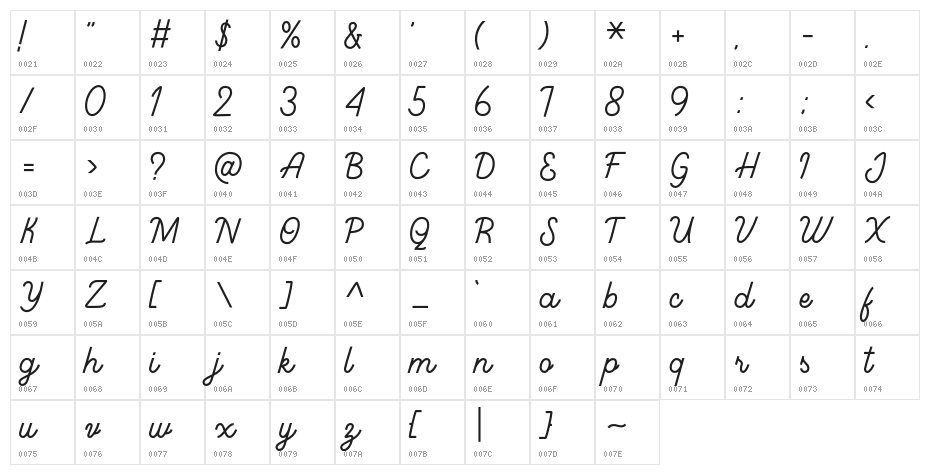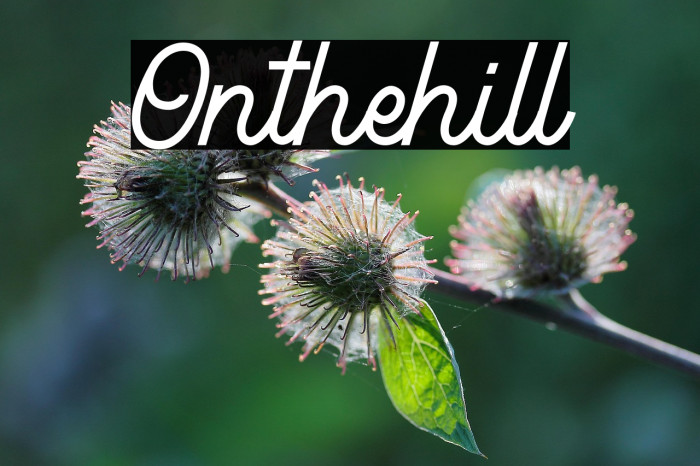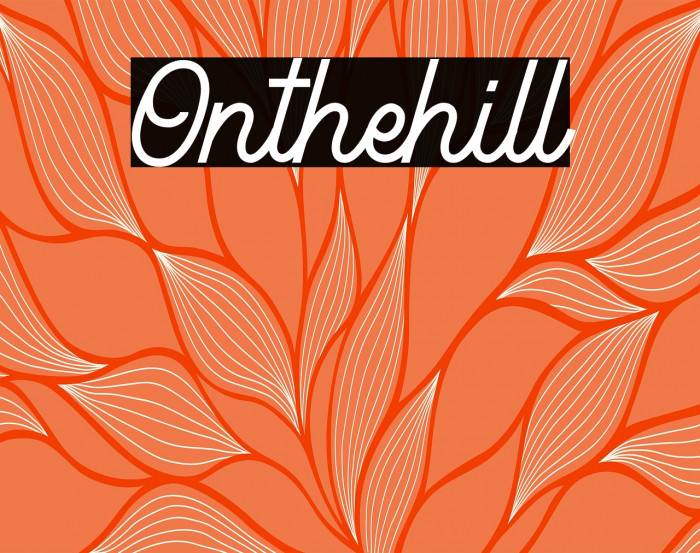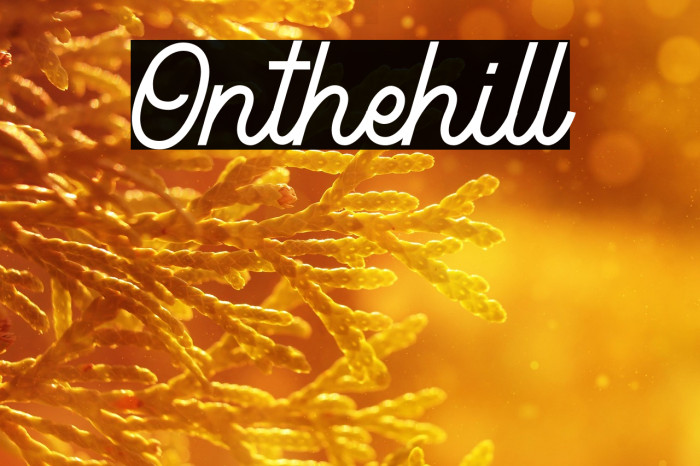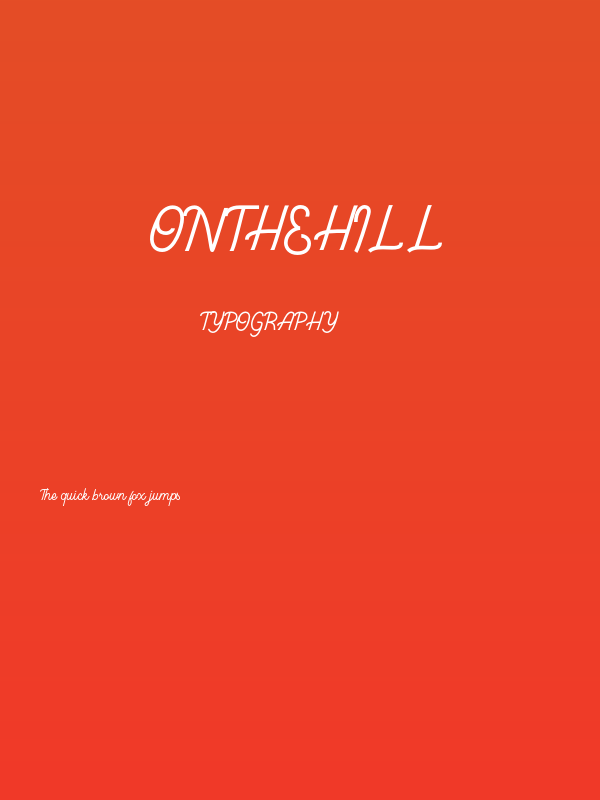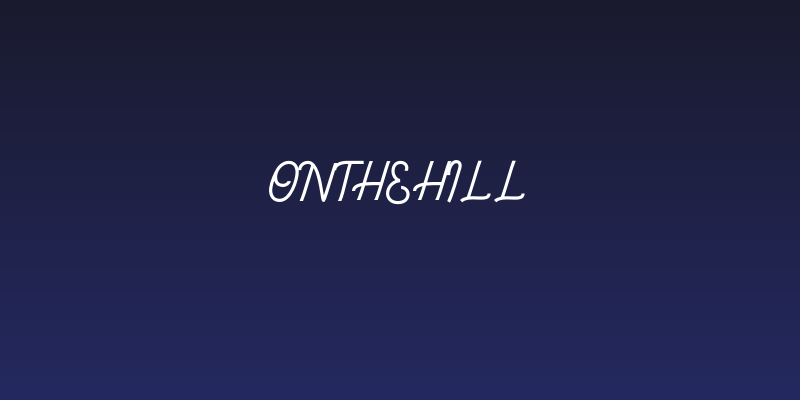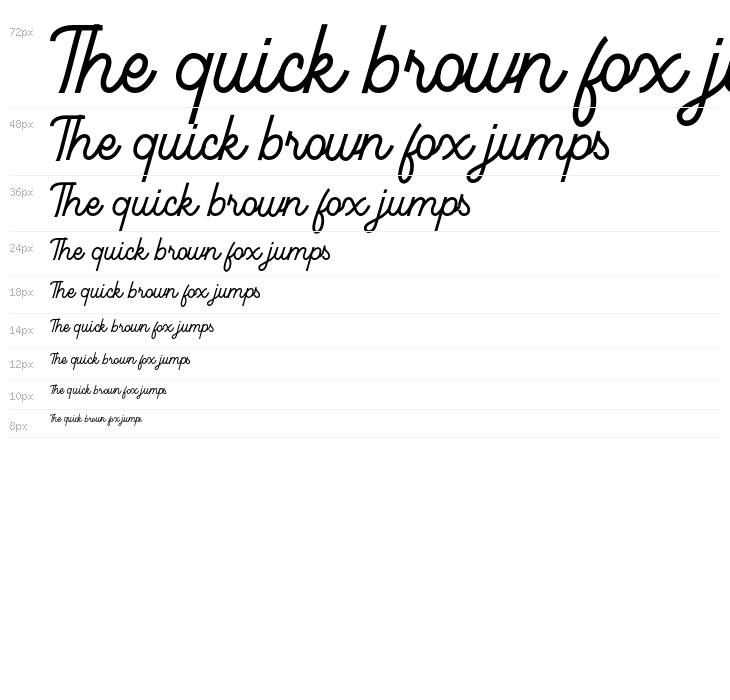
Onthehill Font
Onthehill Description
This font features a flowing, cursive style with a modern twist. The uppercase letters are elegantly connected, creating a sense of movement and fluidity. The lowercase letters maintain a consistent slant, enhancing the script-like appearance. Numbers are designed with a similar slant, ensuring uniformity across all characters. Special characters are integrated seamlessly, maintaining the overall aesthetic. The font's smooth curves and balanced proportions make it visually appealing and easy to read, while the slight tilt adds a dynamic feel. This typeface is ideal for projects that require a touch of elegance and sophistication.